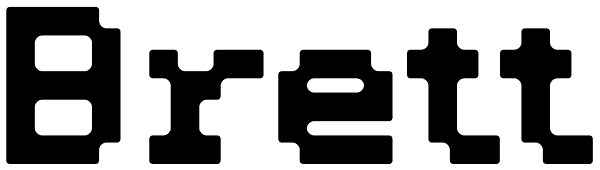
Brett
Brett is a rounded bitmapped typeface, with strange serifs. With its elegant — even quite useless — small caps and its ‘old style’ ligatures (like ‘ct’ or ‘st’), it found itself half-way between ‘techno’ style and frenzied historicism. Although a...